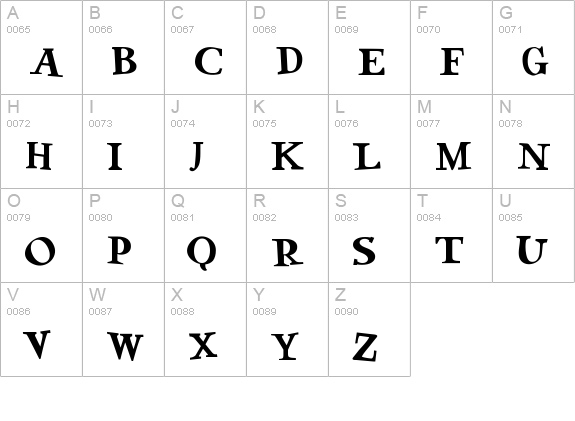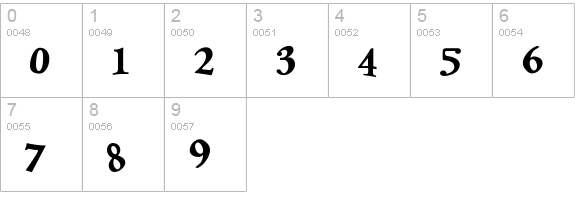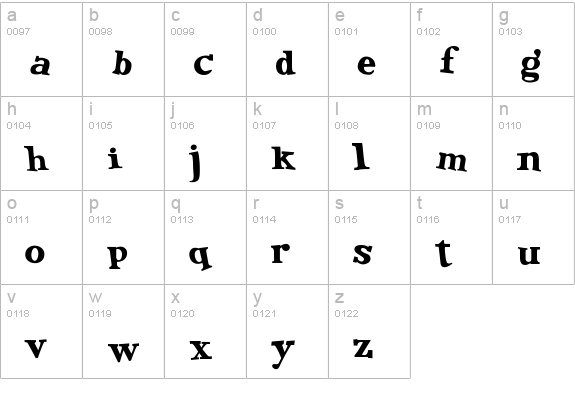
Green Eggs and Spam Font Details
Introducing the captivating and versatile Green Eggs and Spam font – a true masterpiece for all typography enthusiasts! This remarkable font combines a unique blend of elegance and playfulness, making it the perfect choice for a wide range of design projects. Green Eggs and Spam font embodies a delightful balance between modern sophistication and whimsical charm. Each letter is meticulously crafted with precision and attention to detail, resulting in a visually stunning typeface that is bound to capture the imagination of anyone who encounters it. With its bold and eye-catching appearance, Green Eggs and Spam font is incredibly versatile and can effortlessly elevate any design, whether it be for branding, advertising, packaging, or even personal projects. Its versatility is further enhanced by its extensive character set, which includes uppercase and lowercase letters, numerals, punctuation marks, and a variety of special characters. One of the most exceptional features of the Green Eggs and Spam font is that it is freely available to download at FontsMarket.com. This means that you can access this remarkable font without any cost, making it an invaluable resource for designers, students, and anyone seeking to add a touch of creativity to their projects. Whether you're looking to create stunning headlines, captivating logos, or eye-catching posters, Green Eggs and Spam font is sure to deliver exceptional results. Its clean lines and distinctive style will breathe life into your designs and leave a lasting impression on your audience. Don't miss out on the opportunity to enhance your design arsenal with the impressive Green Eggs and Spam font. Download it for free at FontsMarket.com and unlock a world of endless creative possibilities.